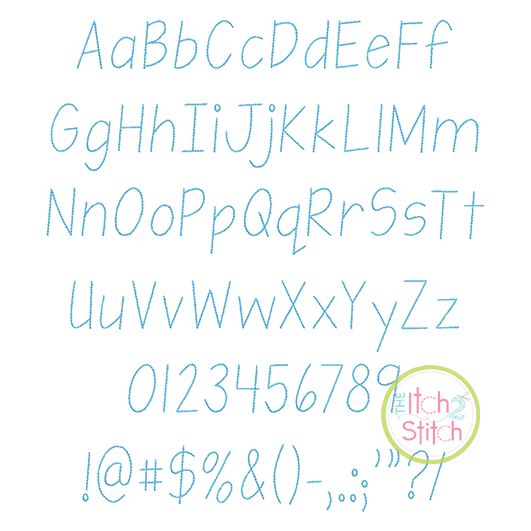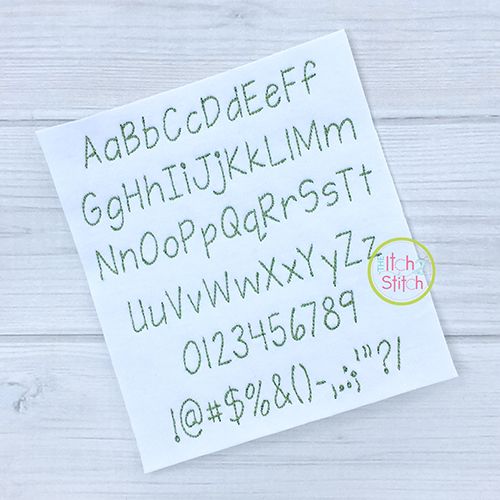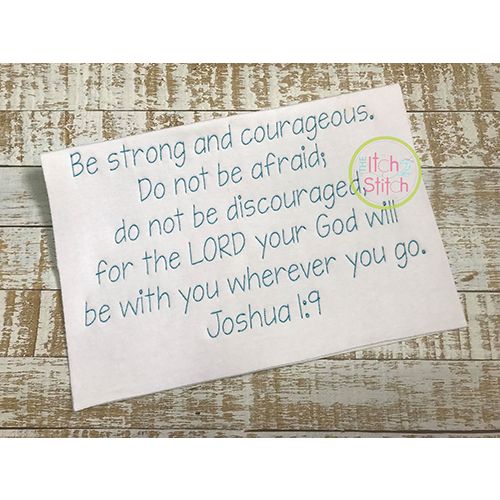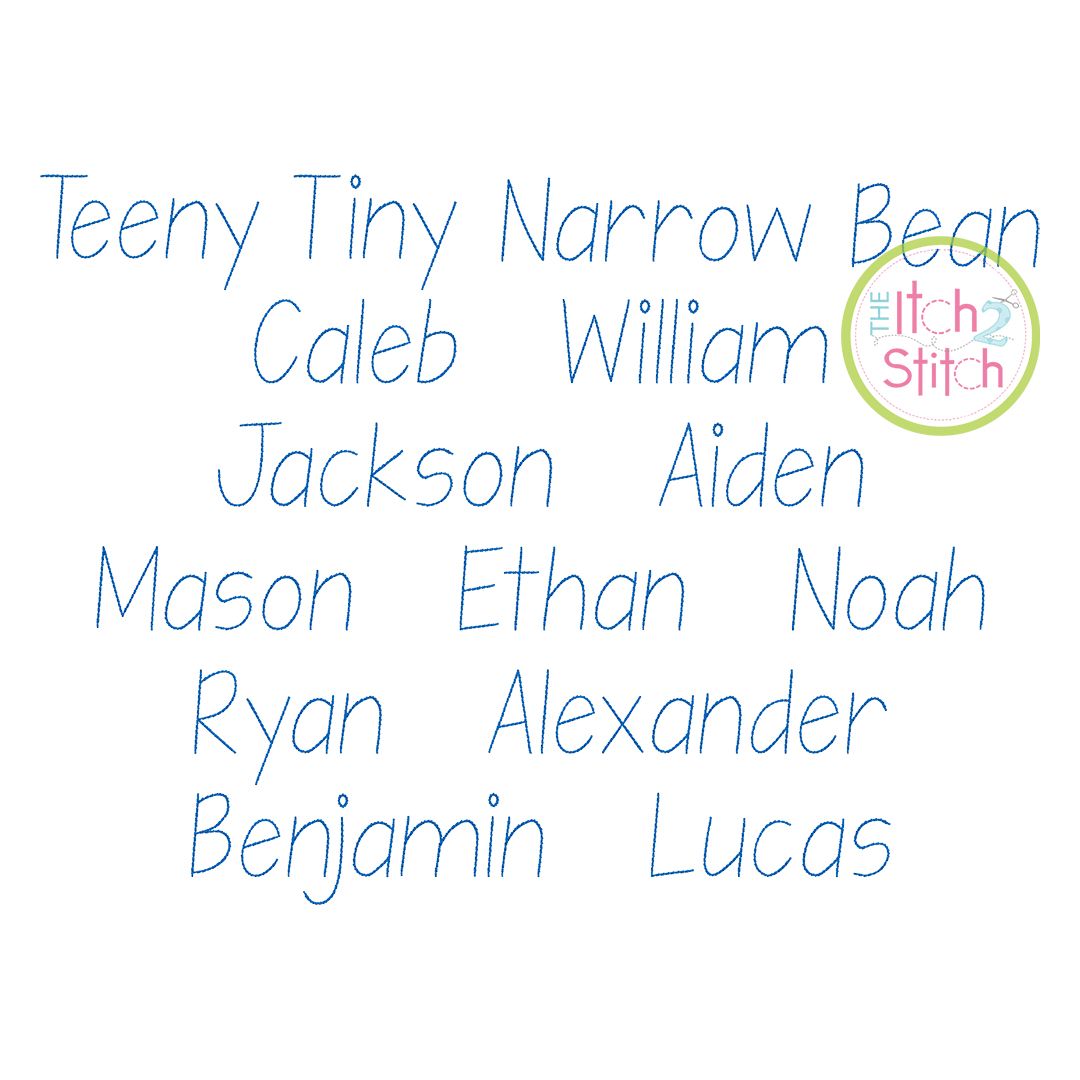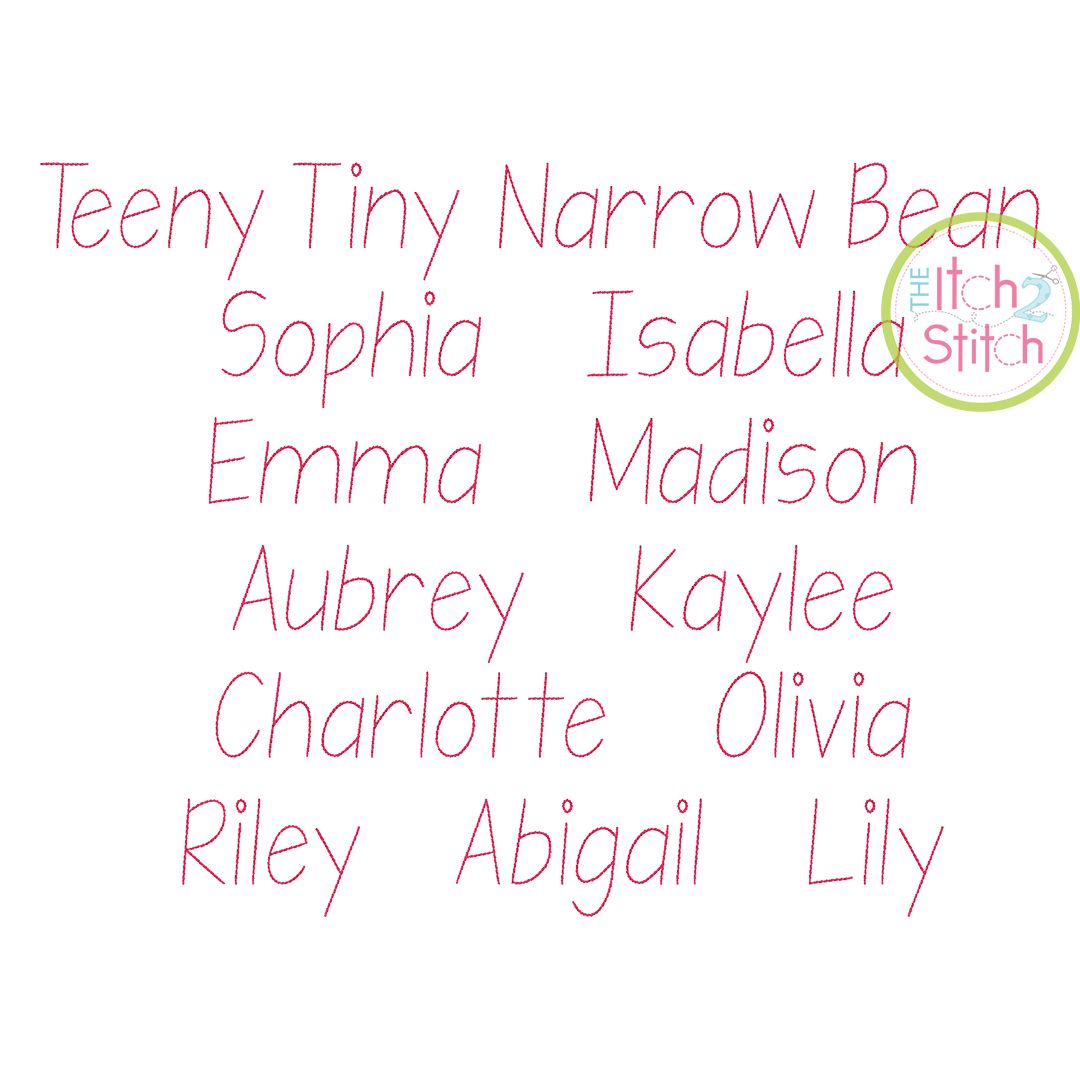
Teeny Tiny Narrow Bean Stitch Embroidery Font
This is a three-pass backstitch font originally designed to stitch on fabric, not card stock. Another version, Teeny Tiny Narrow Greeting Card Font, designed and tested on watercolor paper is sold separately.